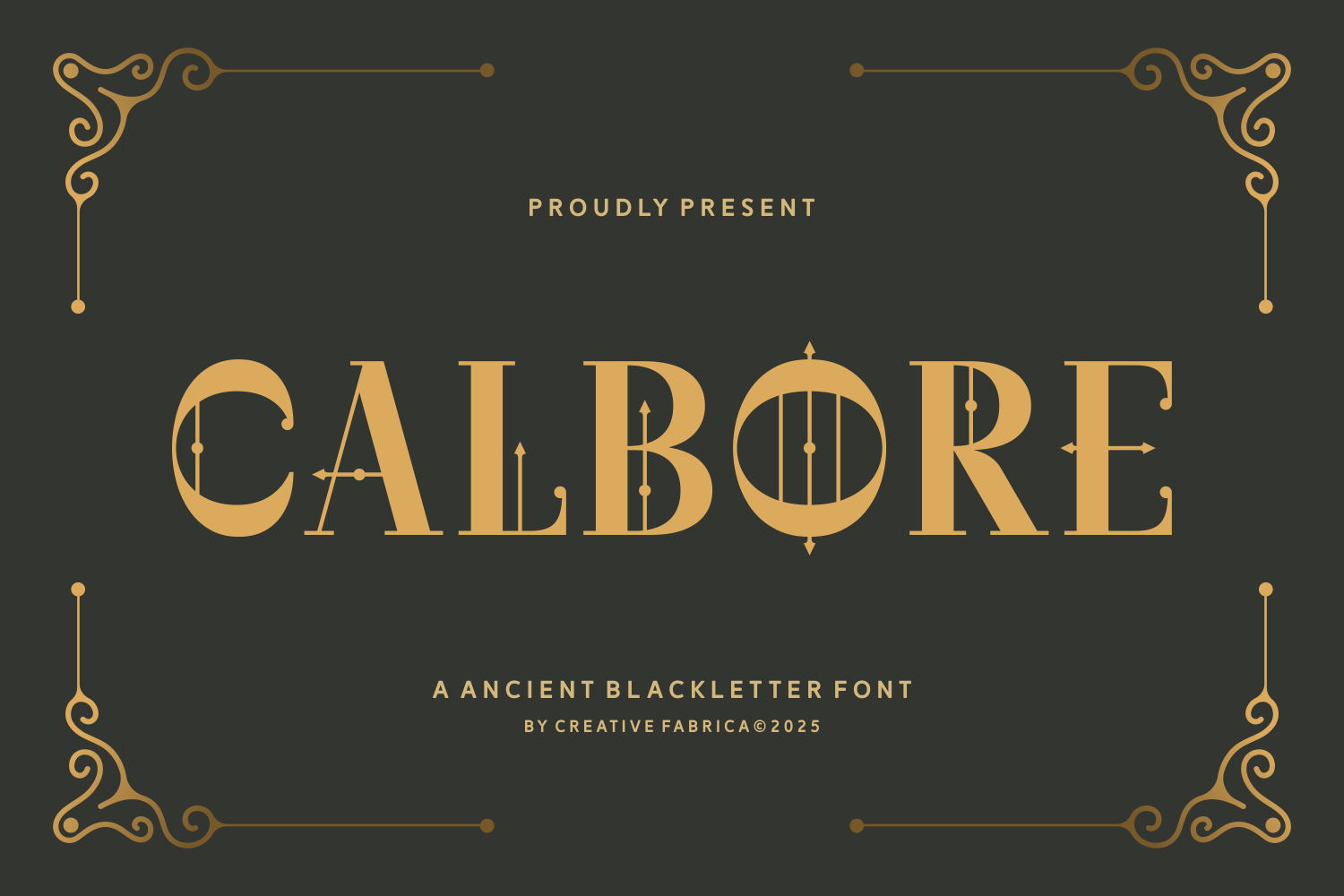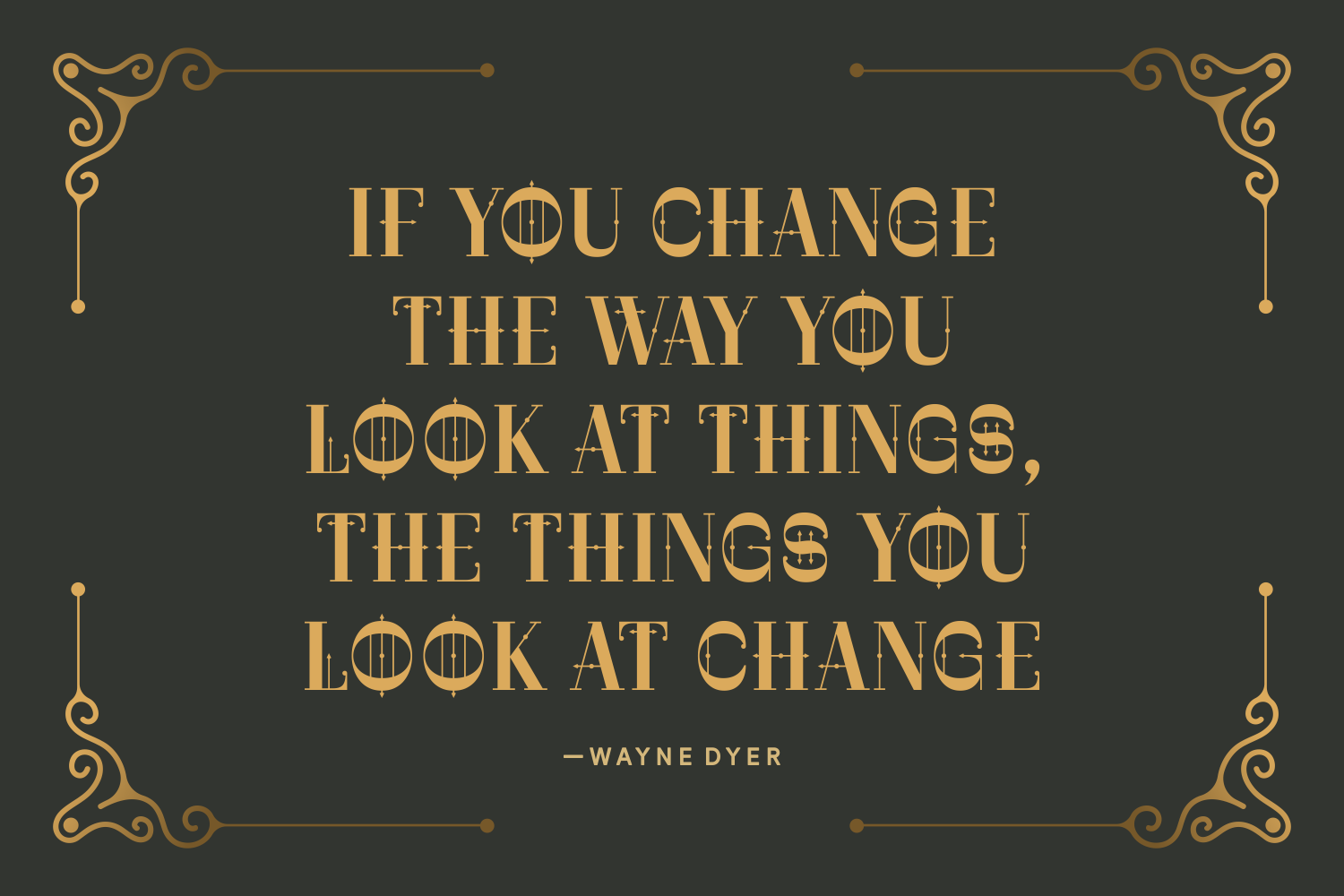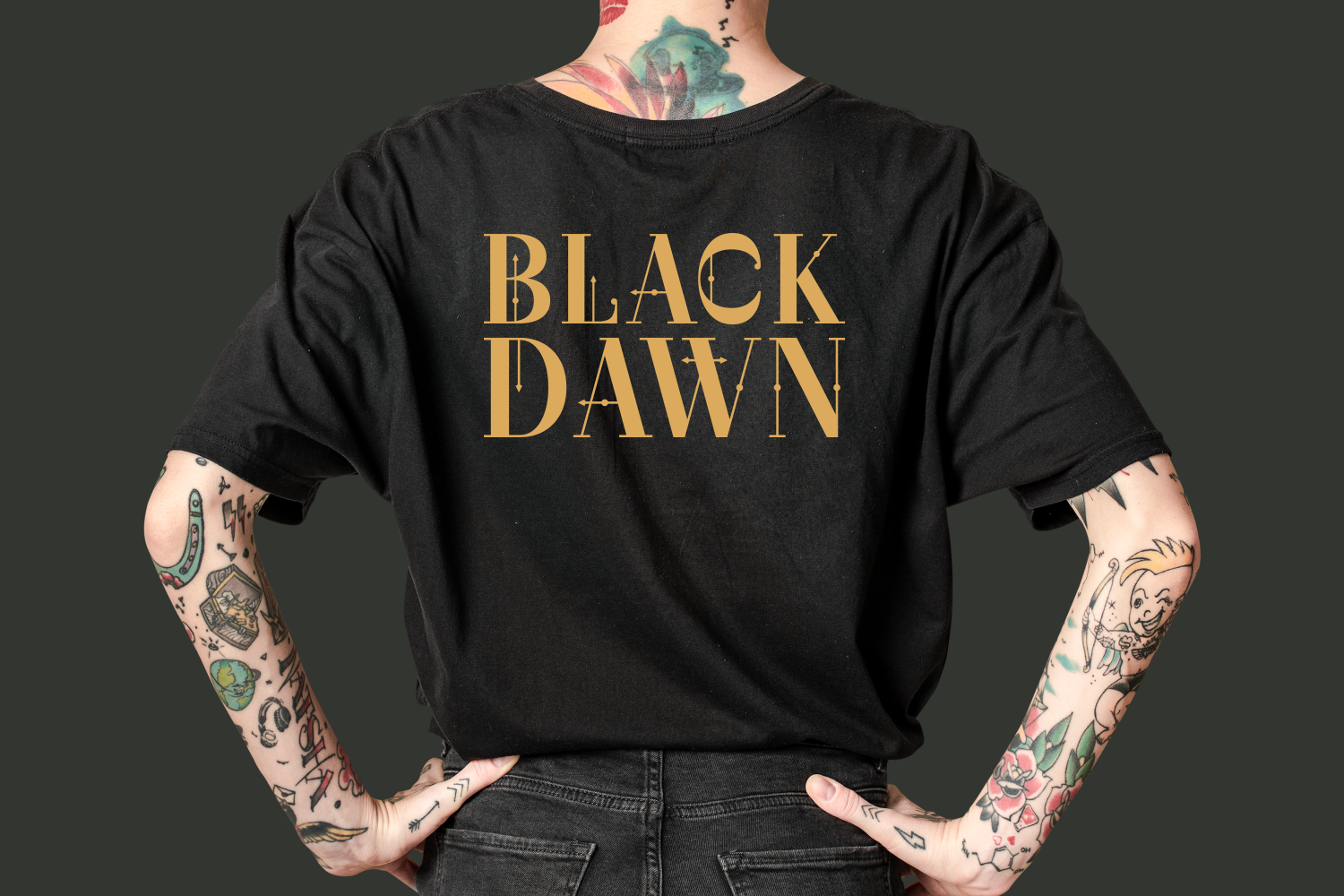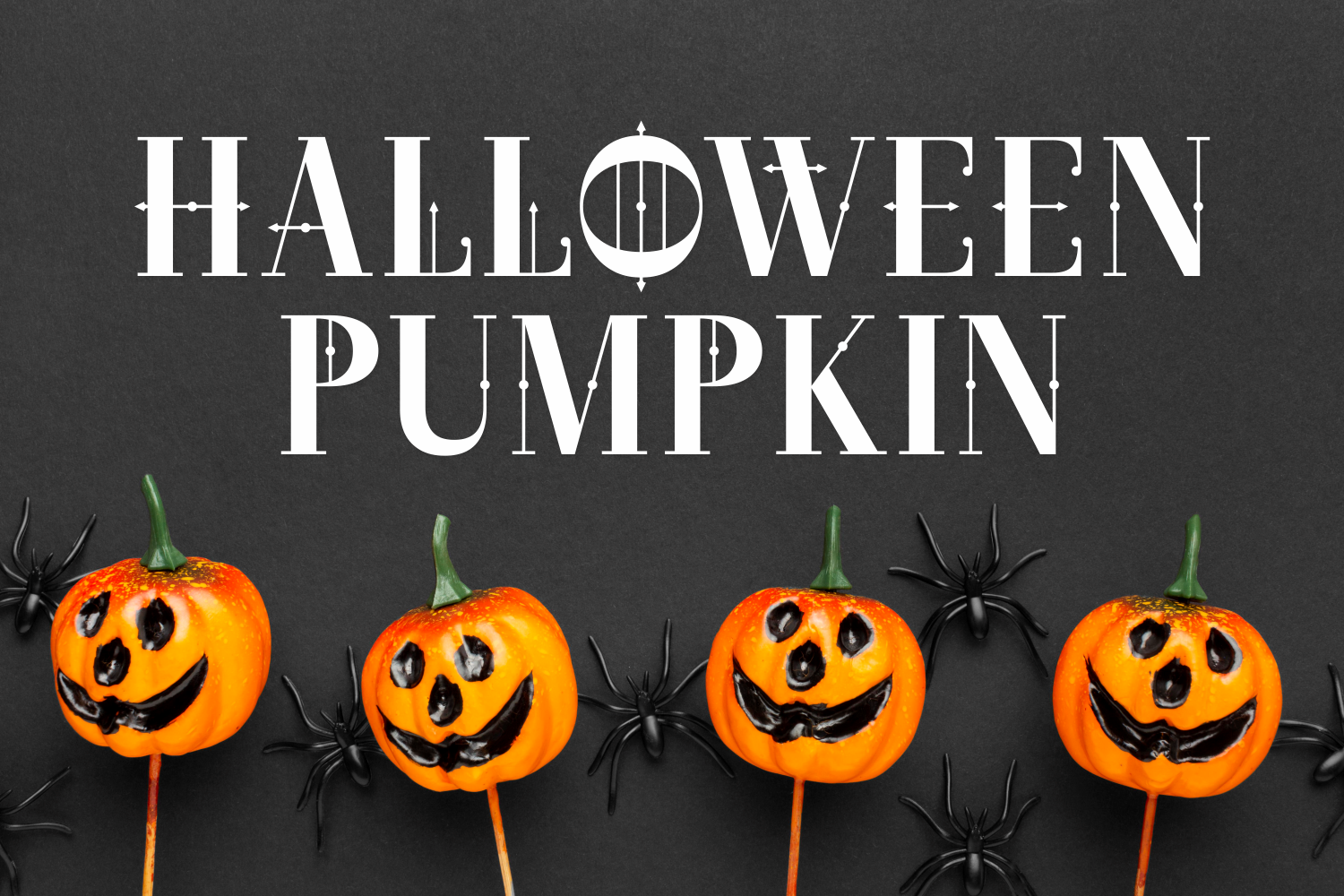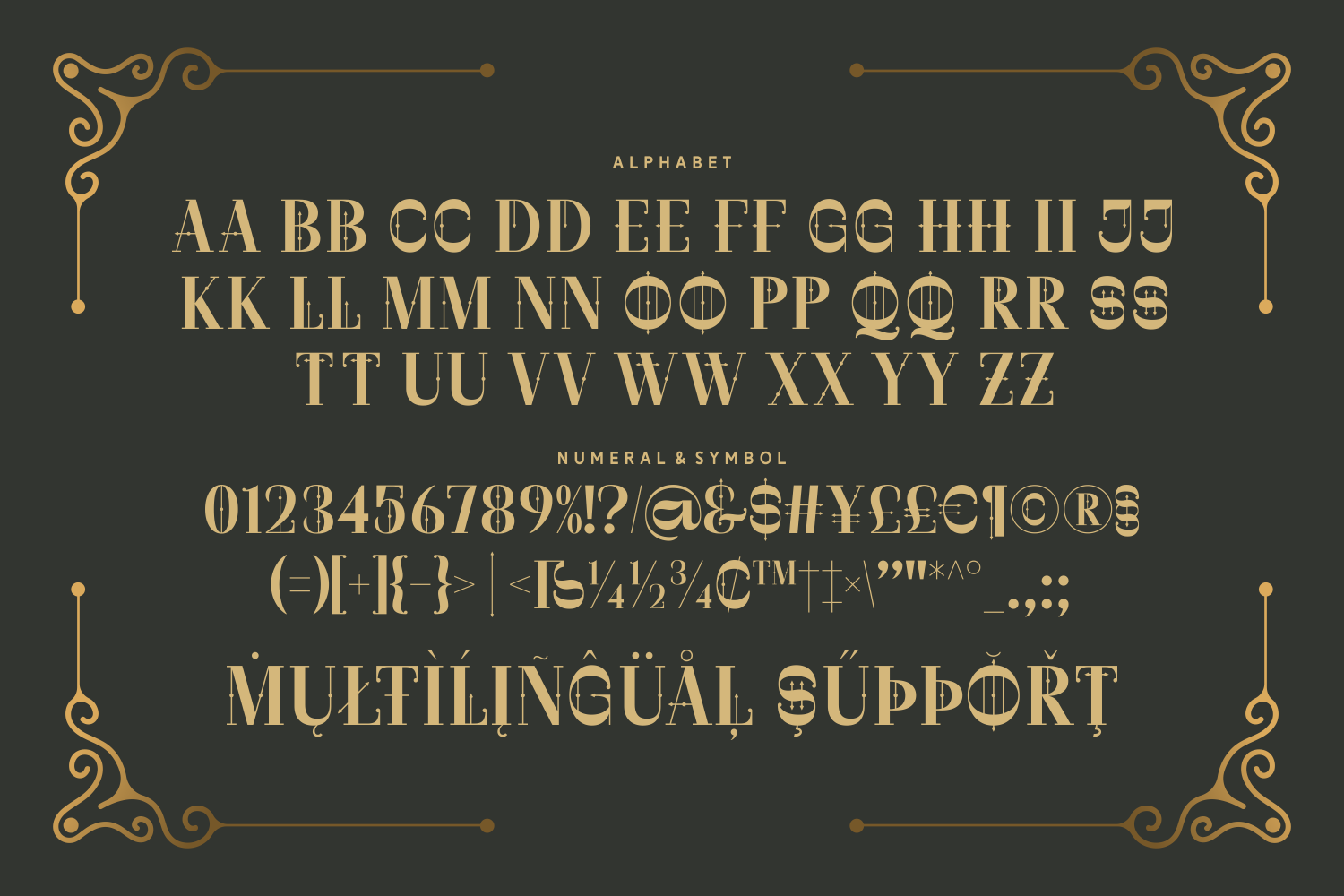
Calbore is an ancient-inspired blackletter font with geometric shapes and arrow-like accents. Its unique style works well for fantasy book covers, historical branding, and creative logos.